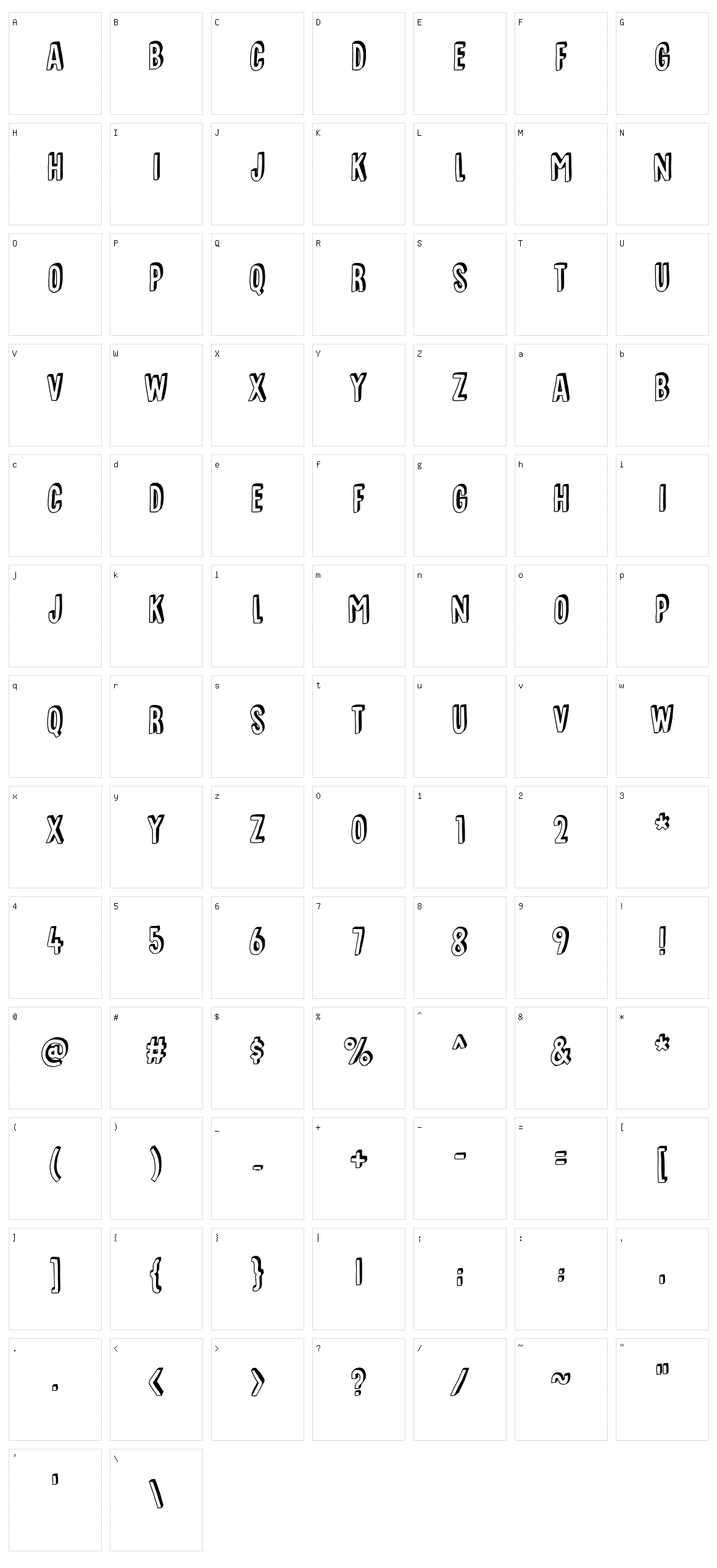
The free font Tacky Shoes is carefully designed by Pizzadude, showcasing a thoughtful balance of creativity and usability and falls under the Cartoon font style. When you download the ZIP file, it contains only 30.34 KB of font files, making it lightweight and quick to download. Please review the license details below to understand permitted usage and distribution rights. If license information is not available, we recommend using this font for personal projects only or contacting the author directly for commercial usage permissions.